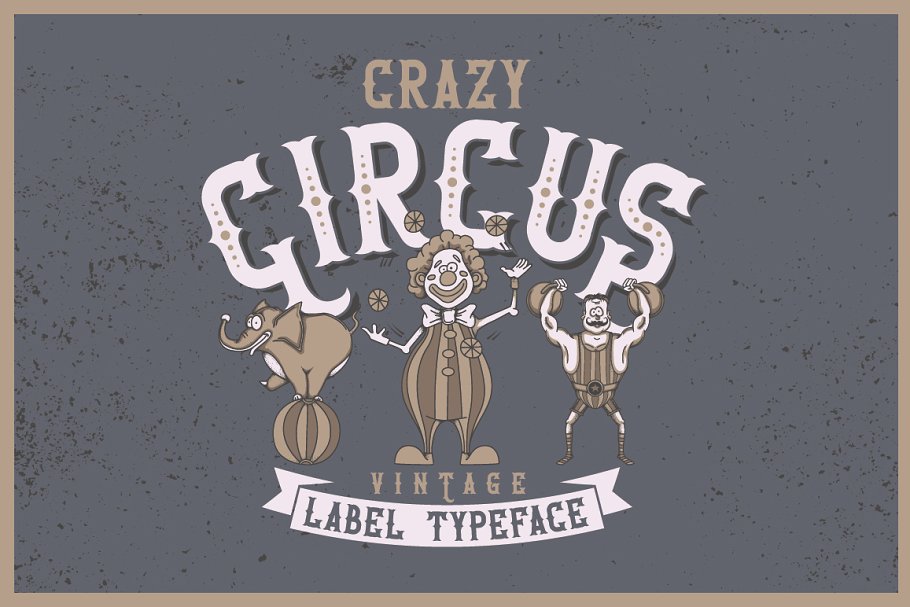
Are you looking to add a touch of vintage charm to your next design project? Look no further than Crazy Circus, a captivating and eye-catching typeface created by Oleg Voznyy. With its strong and vintage label style, this font is perfect for adding a unique and nostalgic feel to any design.
The Crazy Circus typeface is not just visually appealing, but also highly versatile. It is ideal for creating labels, logos, and even Christmas letters. Its charm lies in its ability to evoke emotions and transport your audience back in time. Imagine the joy on your loved ones' faces when they receive a beautifully designed Christmas letter written in Crazy Circus font.
What sets Crazy Circus apart is its attention to detail and variety of effects. Included in this package are EPS10 files, OTF and WOFF font files, and a complect of 5 fonts with special effects. You can even experiment with mixing textures and shadow effects to create a truly unique and captivating design.
Whether you're a designer, marketer, or simply someone who appreciates the beauty of vintage aesthetics, Crazy Circus is a must-have addition to your font collection. Its versatility and timeless appeal make it the perfect choice for any project.